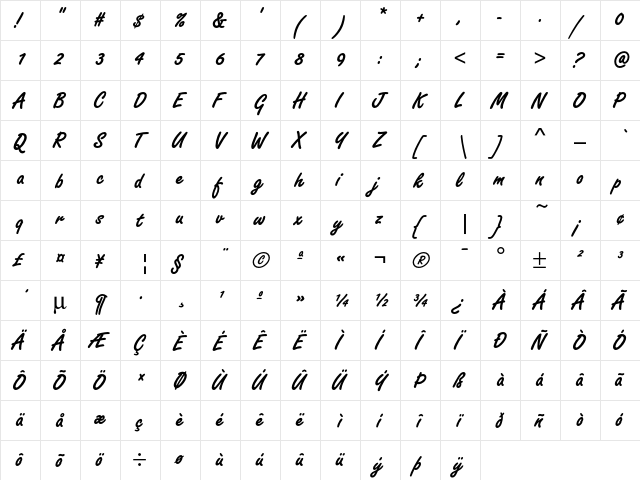
Freestyle Script D Bold
Design Context for Freestyle Script D Typeface
Freestyle Script D flows with the natural rhythm of handwritten lettering, making it ideal for designs that call for warmth and personal expression. The heavy weight commands attention and anchors typographic hierarchies.
Font Pairing: Combine Freestyle Script D with a simple geometric sans for maximum contrast — the tension between flowing curves and clean structure is a classic typographic pairing.
Pro Tip: Use Freestyle Script D for short runs of text — names, titles, or taglines. Extended body copy in script faces tires the eye quickly.